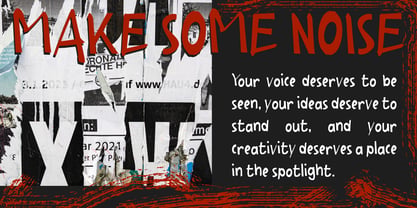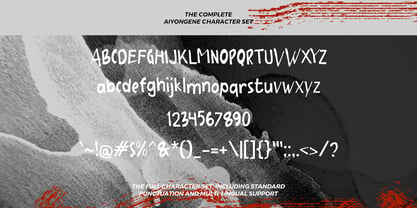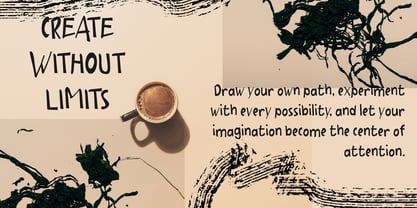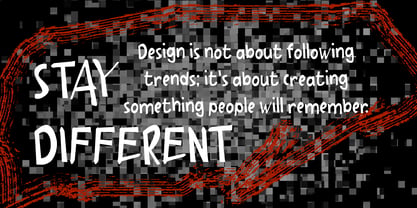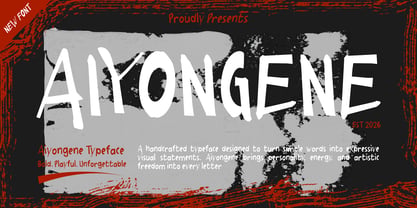
Aiyongene
by Mei Suseno
The Aiyongene Font Family was designed by Wahyu Eka Prasetya, Mei Suseno and published by Mei Suseno. Aiyongene contains 2 styles and family package options. More about this family
Aiyongene is a playful handcrafted display font that brings a bold and expressive personality to every design project. Inspired by freehand lettering and artistic brush strokes, this typeface is designed to create eye-catching visuals that instantly stand out.
Its organic shapes, imperfect details, and energetic character make Aiyongene perfect for posters, branding, packaging, album covers, social media content, apparel designs, children's products, and creative editorial projects. Every letter is carefully crafted to deliver a unique handmade feel while maintaining excellent readability.
Whether you're building a fun brand identity, designing a striking headline, or creating artistic compositions, Aiyongene adds a fresh, modern, and unforgettable touch to your work.
Perfect for:
• Posters
• Branding projects
• Packaging design
• Logo design
• Social media graphics
• Album covers
• T-shirt designs
• Book covers
• Creative advertisements
• Children's products
• Editorial layouts
• Handmade projects
Bring energy, creativity, and personality into every word with Aiyongene.
Designers: Wahyu Eka Prasetya, Mei Suseno
Foundry: Mei Suseno